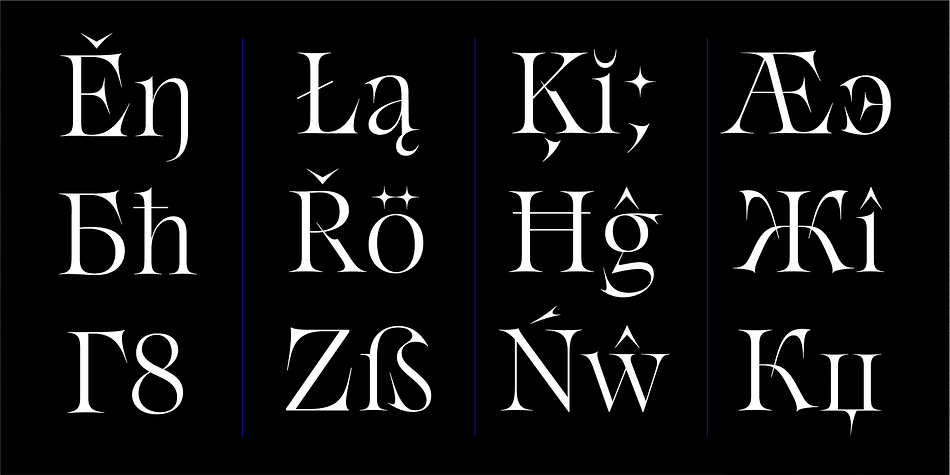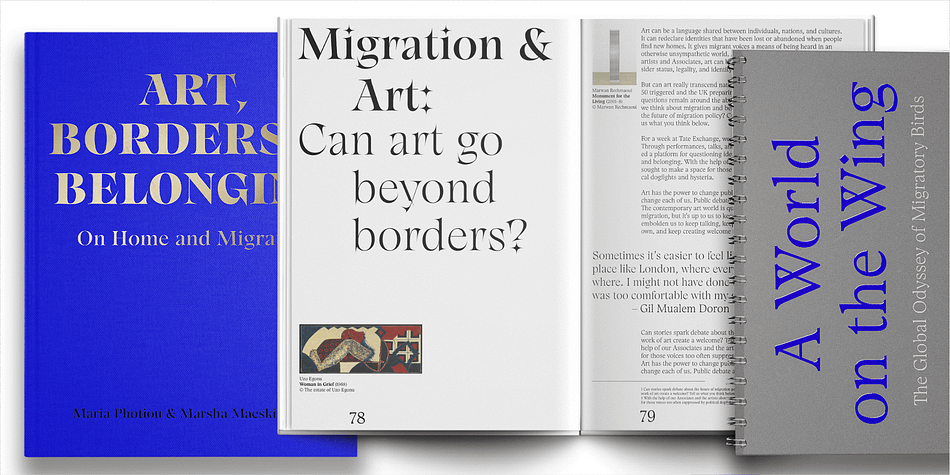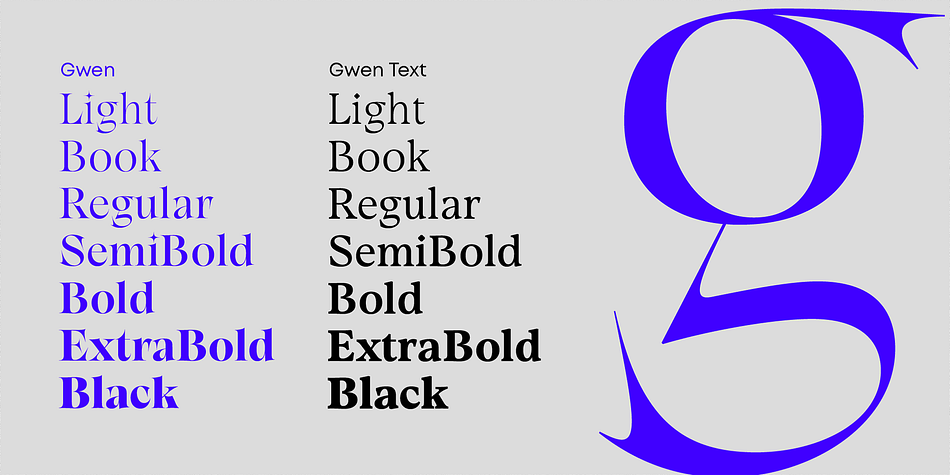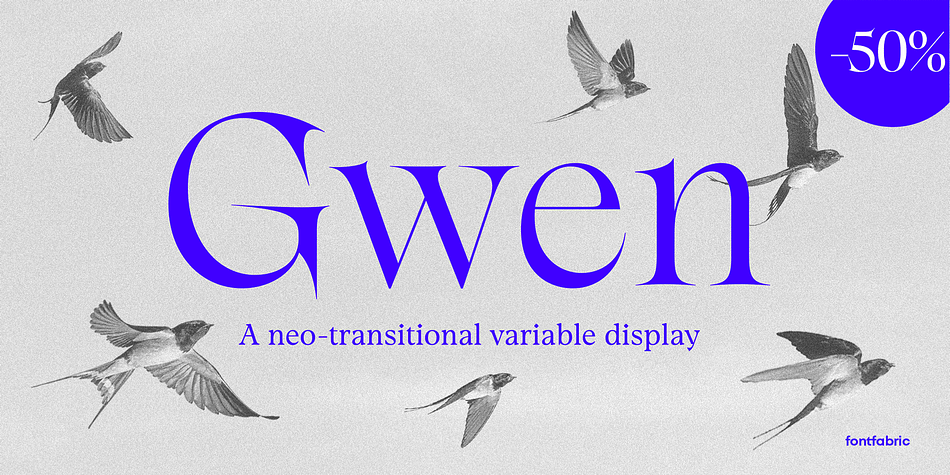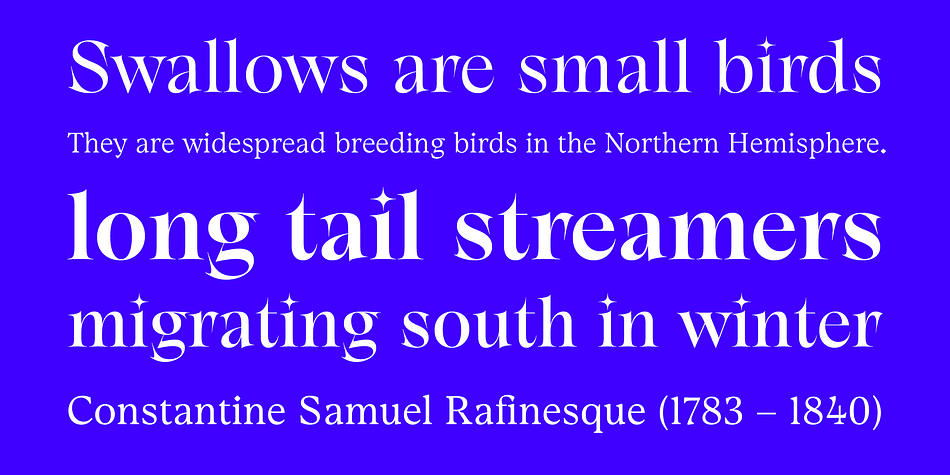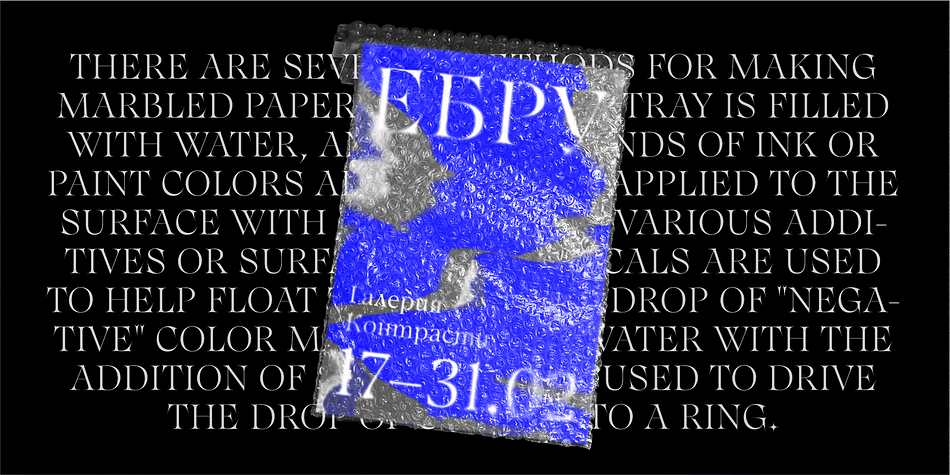
Gwen
Designed by Plamen Motev and Pavel Pavlov, Gwen is a display serif and serif font family. This typeface has fifteen styles and was published by Fontfabric.
Gwen is a variable type system in 7 weights. The complete font family consists of two subfamilies: the highly characteristic Display Serif family which shows its full potential and beauty in big sizes and a more subtle Text variation appropriate for smaller sizes. The variable font combines the best of both worlds and provides unique flexibility to switch between all of the font weights and the text and display style at the same time. The font supports Extended Latin and Cyrillic scripts and its main purpose is to be used in editorials, although it may find good implications in headlines, impactful landing pages, posters, and packaging.